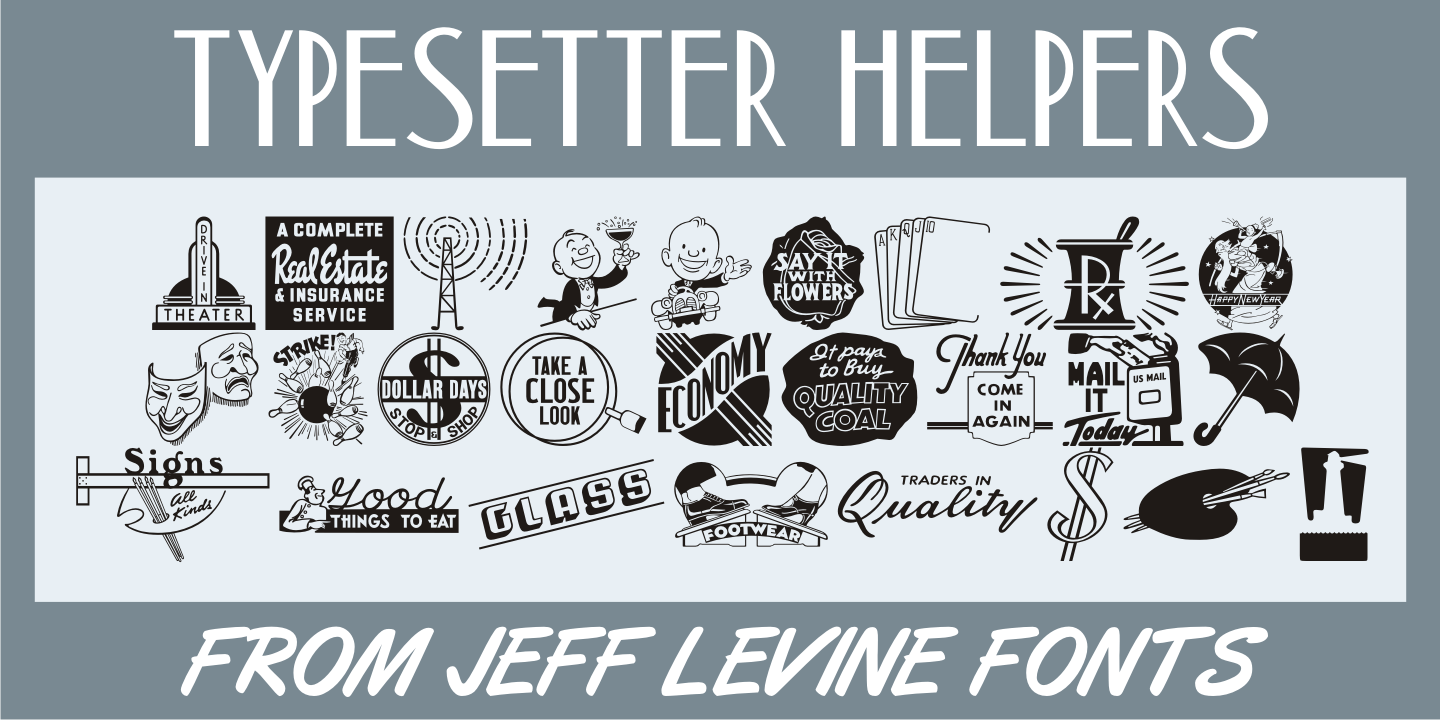
Typesetter Helpers
Typesetter Helpers JNL is another collection of vintage letterpress cuts comprising cartoons, sales helpers, ornaments, stock cuts and other nostalgic pieces.